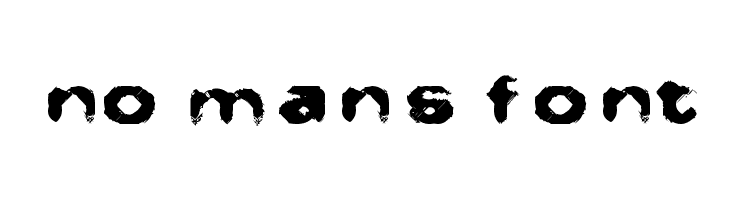
( Andreas Johansson - hem.passagen.se/anjo77/font/ )
A rugged, distressed font with a handcrafted, textured appearance.
( Andreas Johansson - hem.passagen.se/anjo77/font/ )
A bold, distressed font with a grunge, textured appearance.
( Andreas Johansson - hem.passagen.se/anjo77/font/ )
A modern, elegant sans-serif font with sleek, elongated characters.
( Andreas Johansson - hem.passagen.se/anjo77/font/ )
A futuristic, geometric italic font with a digital and tech-inspired style.
( Andreas Johansson - hem.passagen.se/anjo77/font/ )
A futuristic, geometric outlined font with sharp, angular forms.
( Andreas Johansson - hem.passagen.se/anjo77/font/ )
A bold, geometric font with a digital, pixel-art style.
( Andreas Johansson - hem.passagen.se/anjo77/font/ )
A futuristic, pixelated font with a geometric and mechanical design.
( Andreas Johansson - hem.passagen.se/anjo77/font/ )
A geometric, tech-inspired font with a pixelated, futuristic design.
( AncientLahiru )
A hand-drawn, rustic font with irregular strokes and an organic feel.
( Amitsoni2410 - www.behance.net/amitsoniag6c8f )
A bold, geometric font with a futuristic and industrial aesthetic.